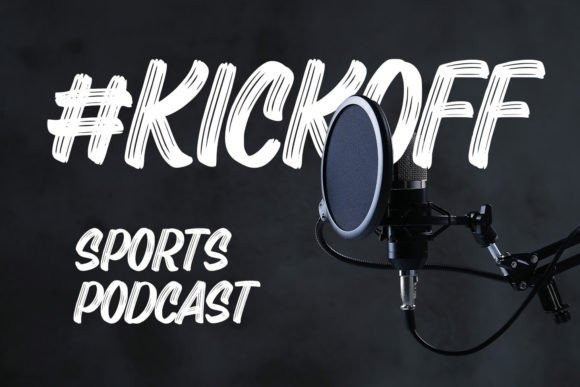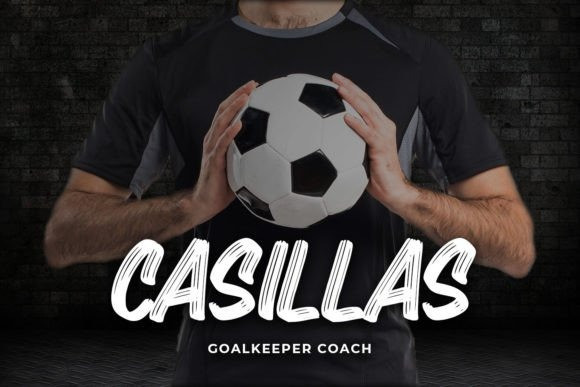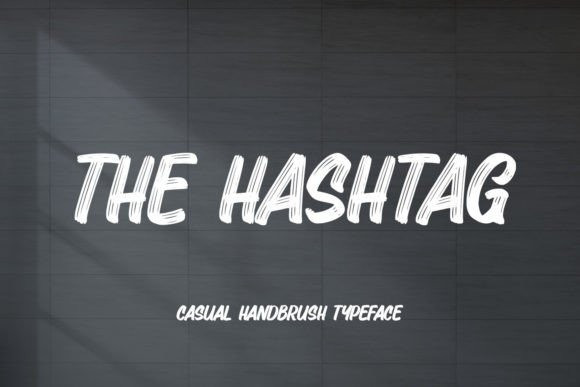
The Hashtag Font
The Hashtag Font is a natural and sleek handwritten brush font. Add it to your creative projects and you will be amazed by the generated outcome!